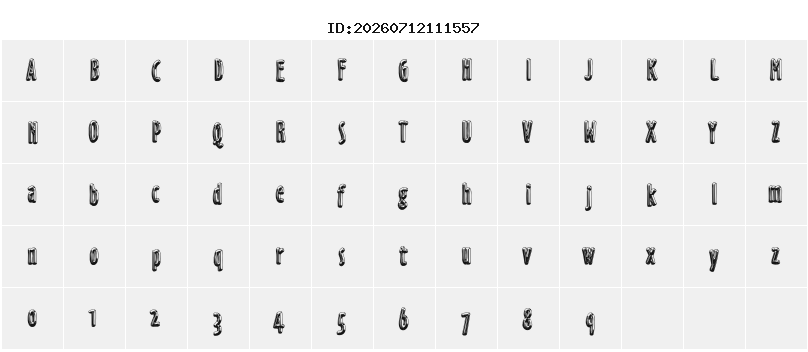
Malaki 'Deluxe' Preview
• Font Name: Malaki 'Deluxe'
• Full Font Name: Malaki 'Deluxe'
About Malaki 'Deluxe'.ttf
Malaki 'Deluxe'.ttf is a modern, elegant sans-serif font designed for ultimate readability and visual harmony. Perfect for branding, headlines, web design, and print materials.